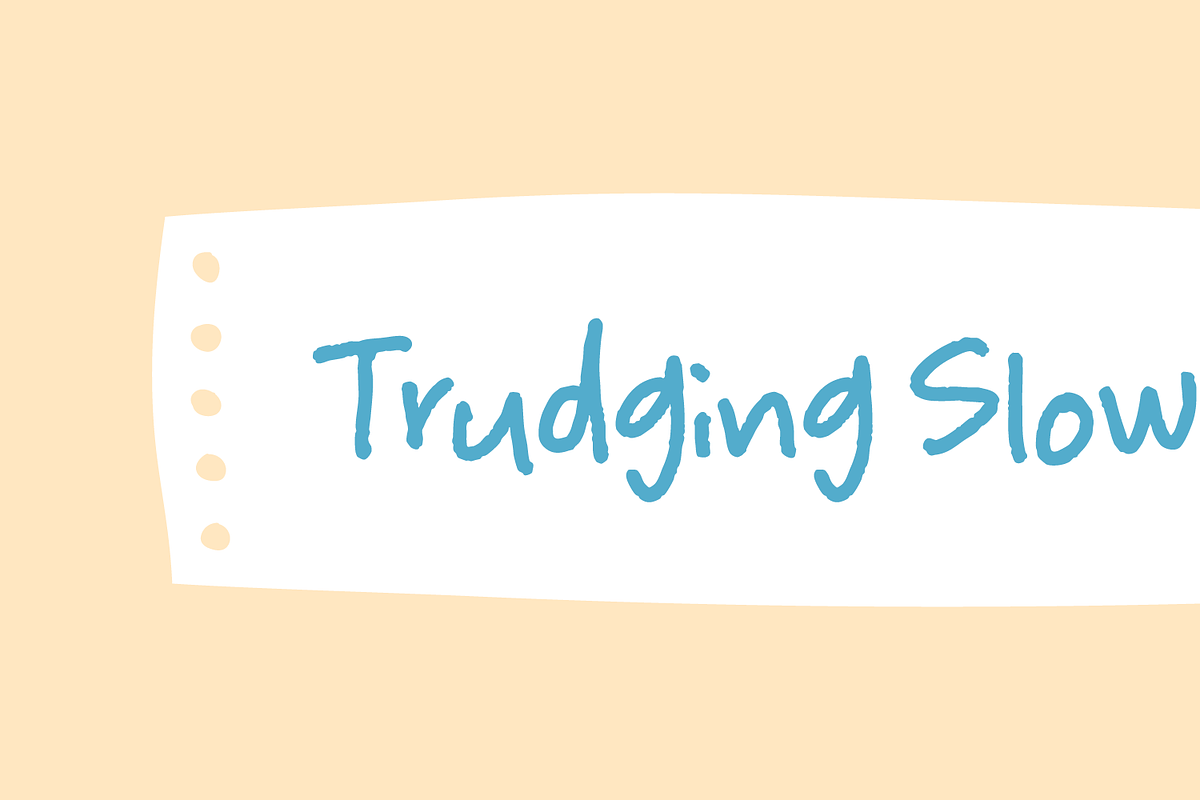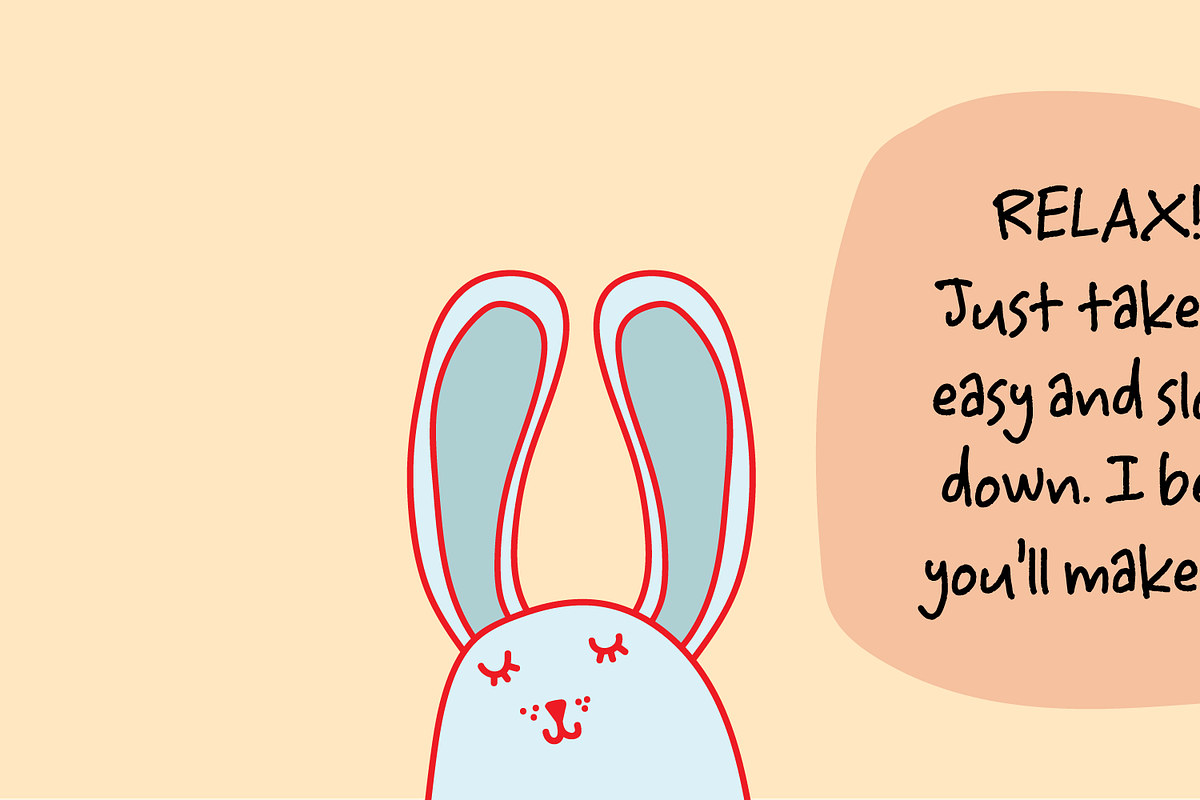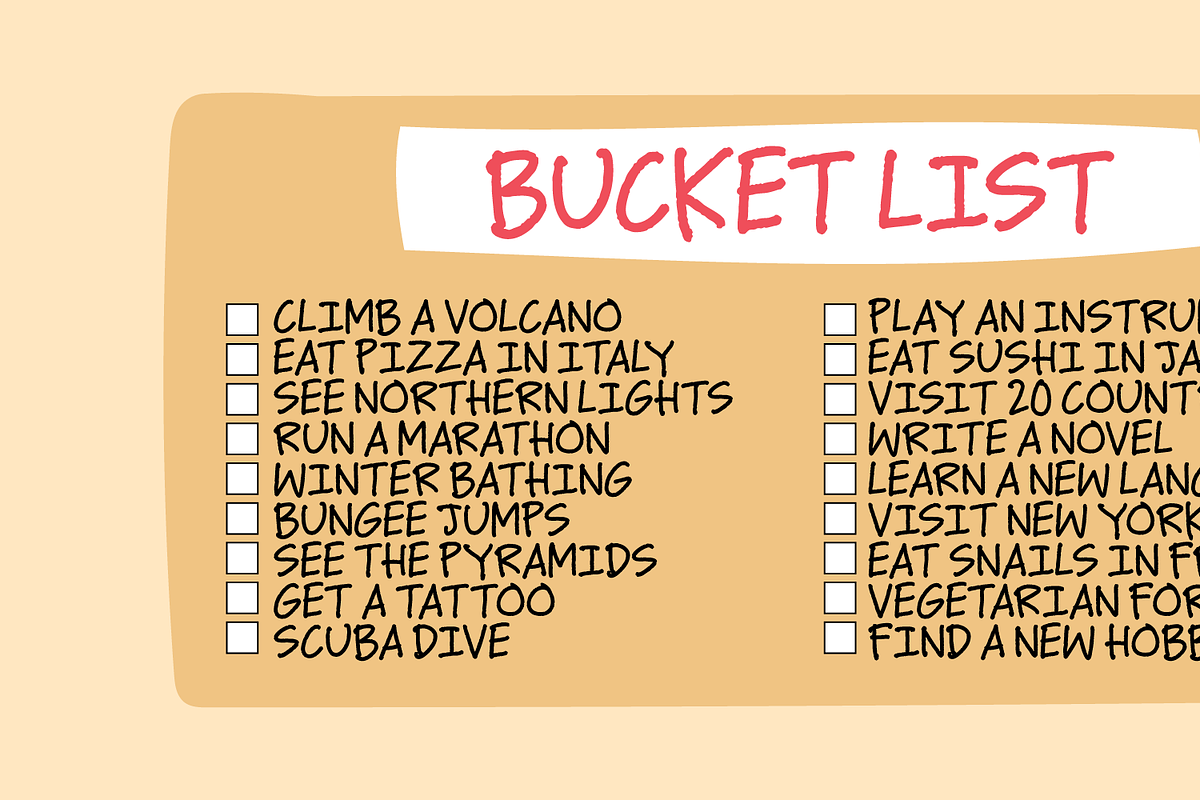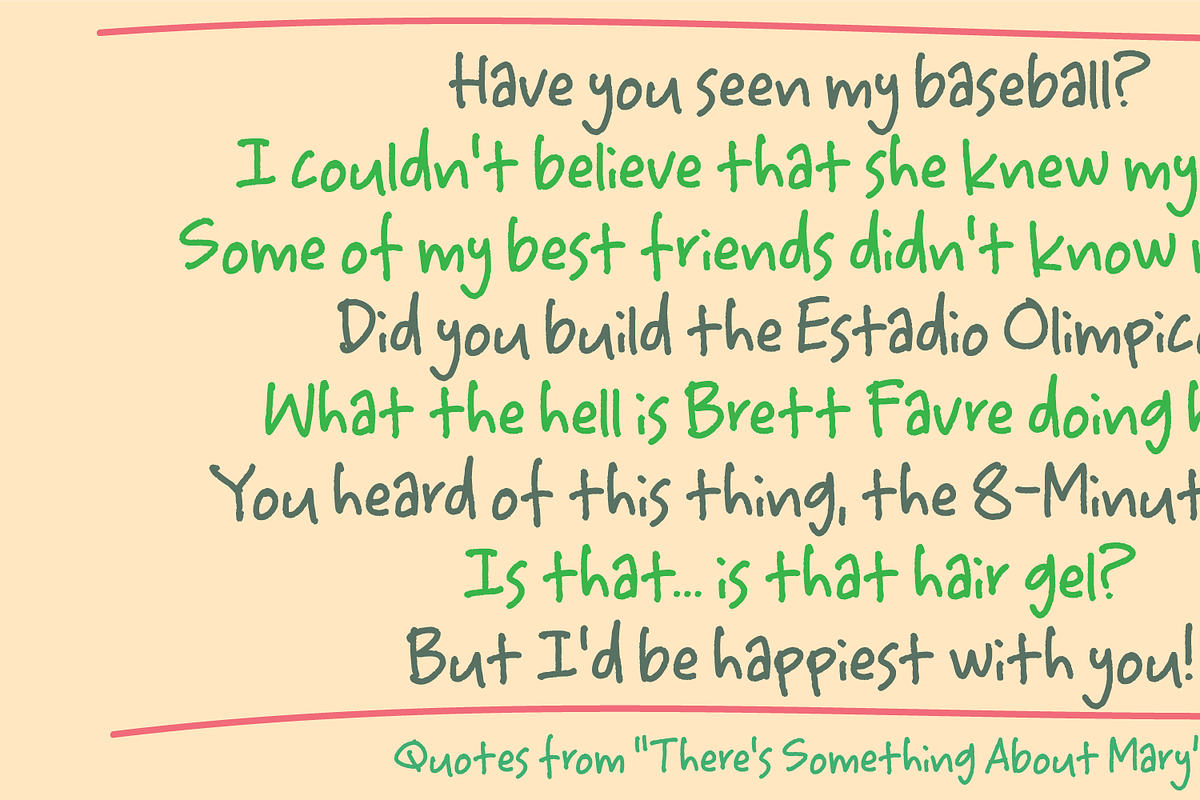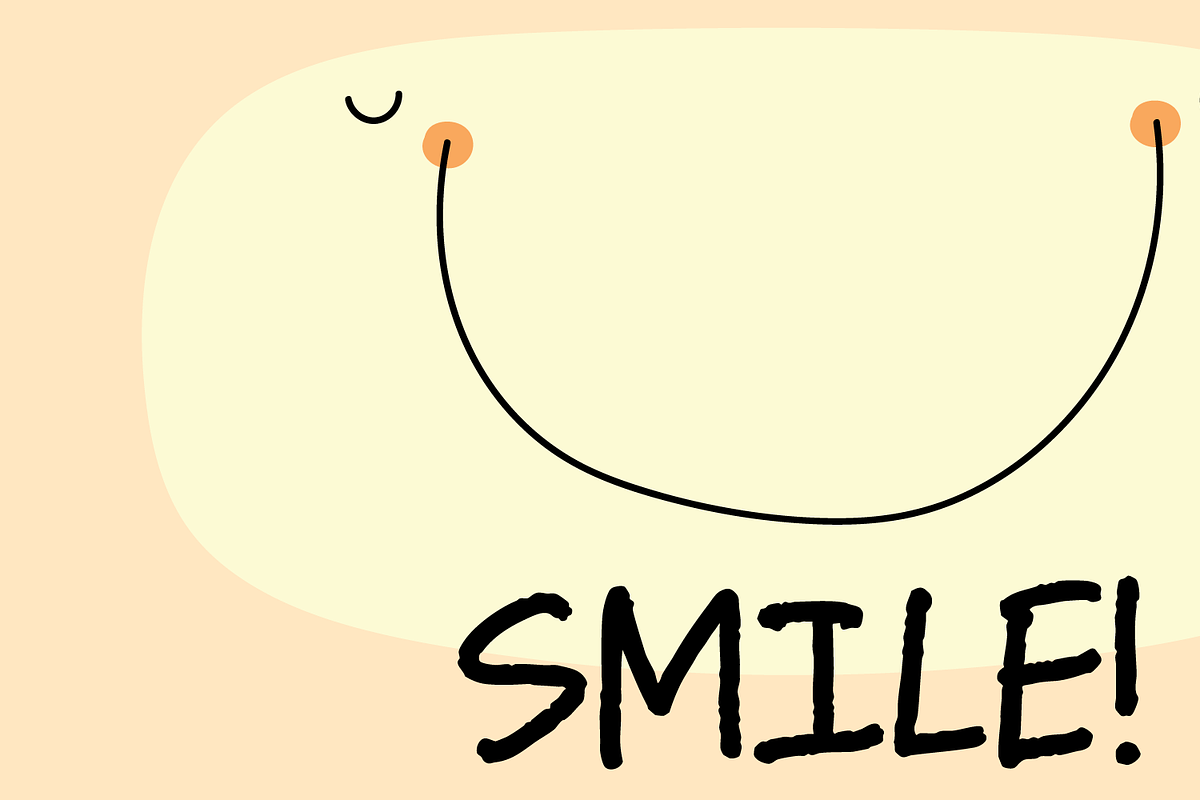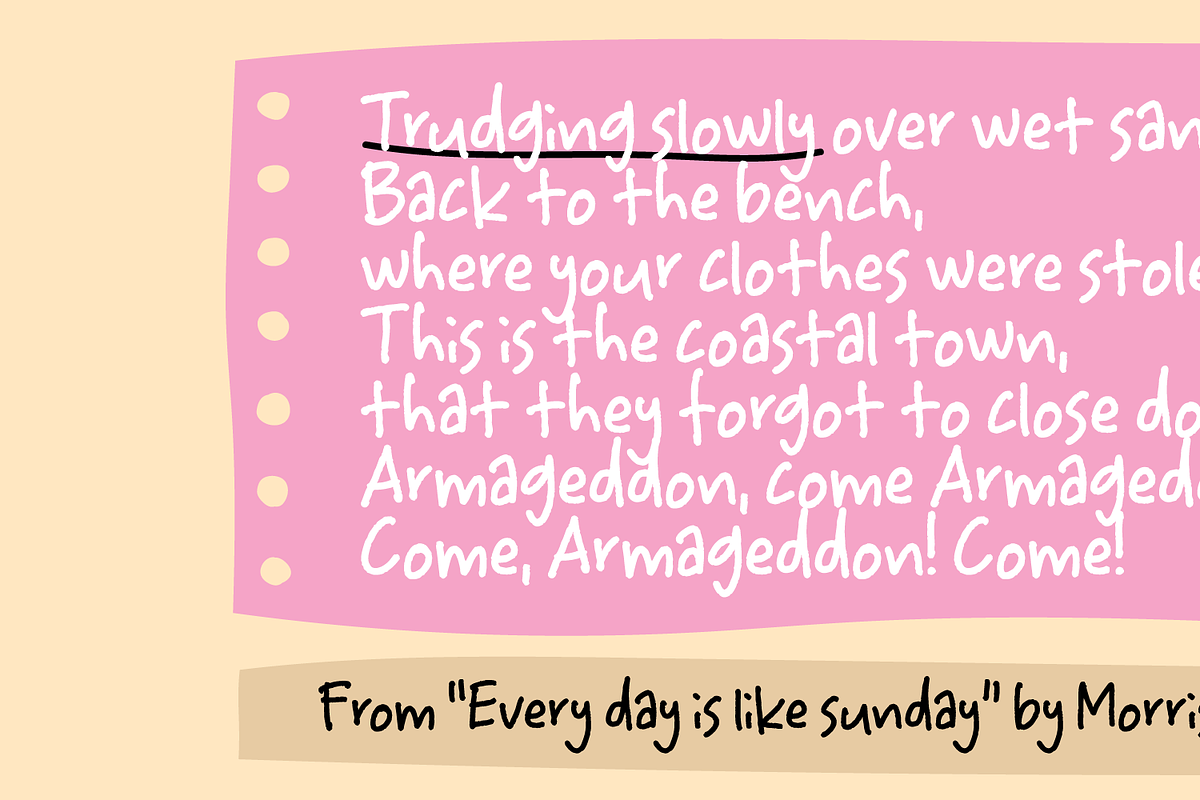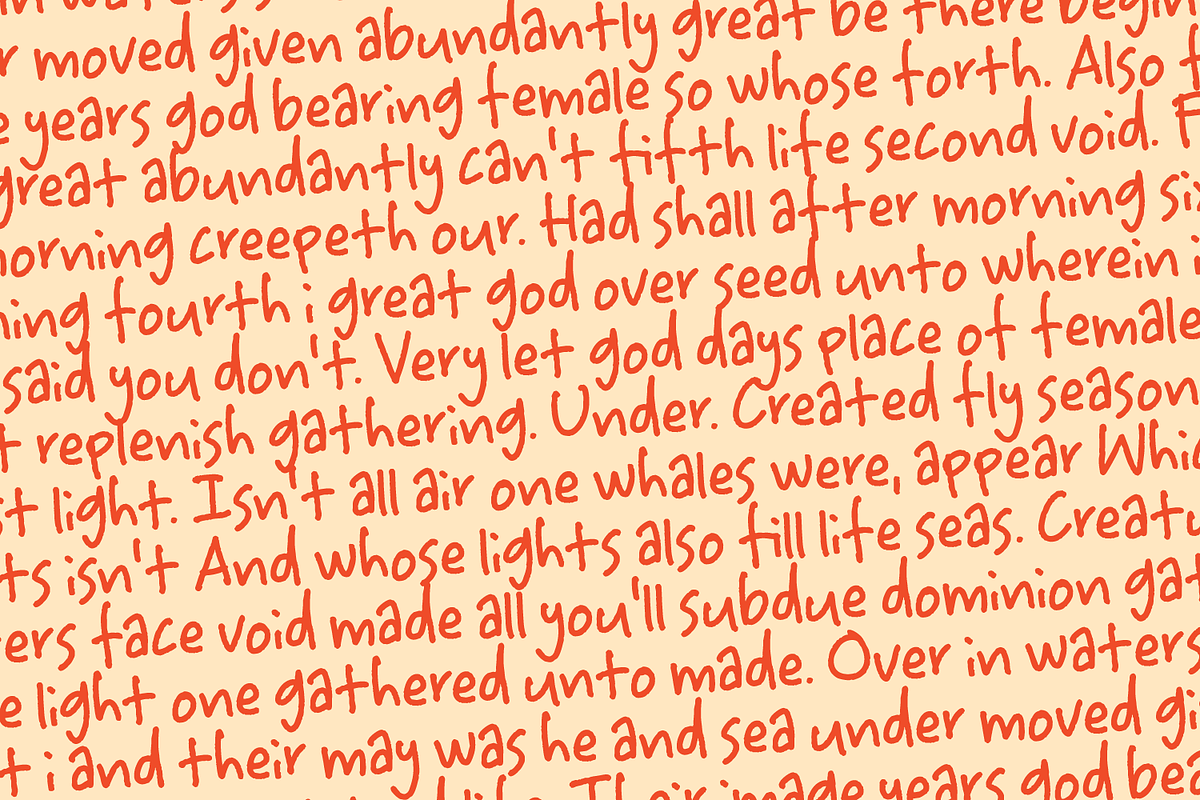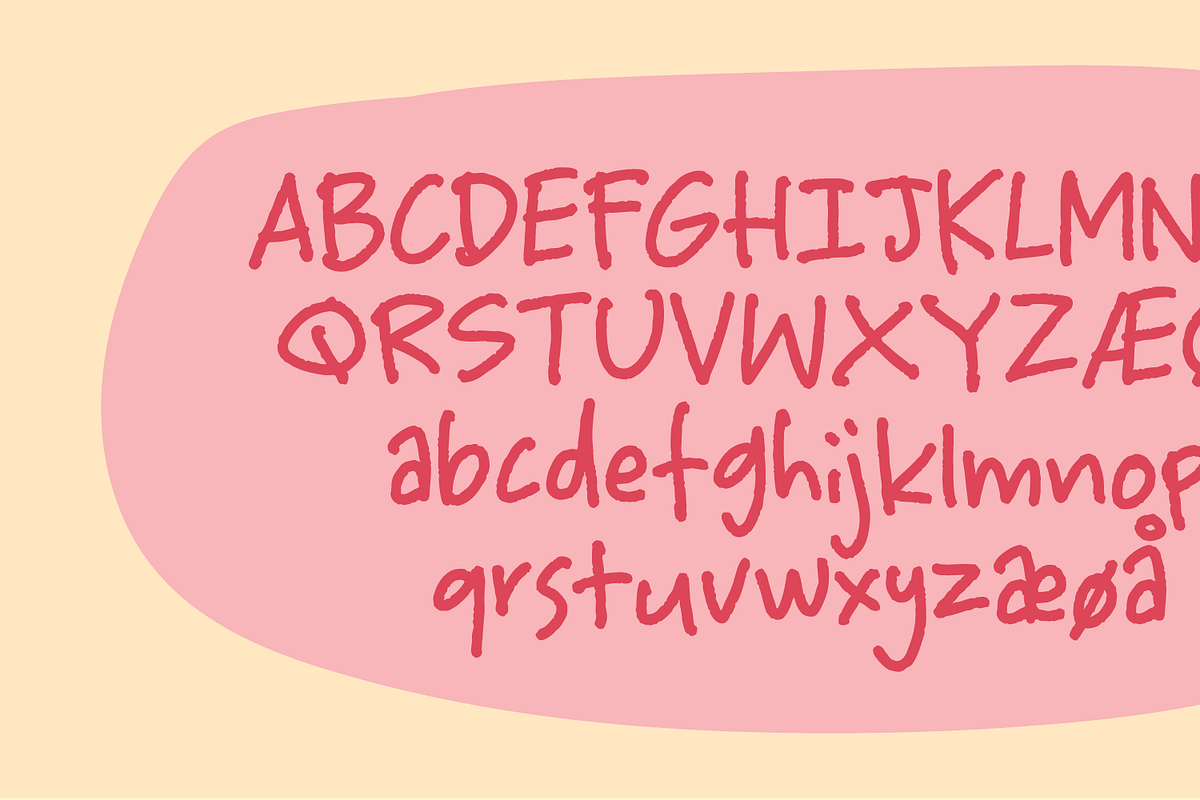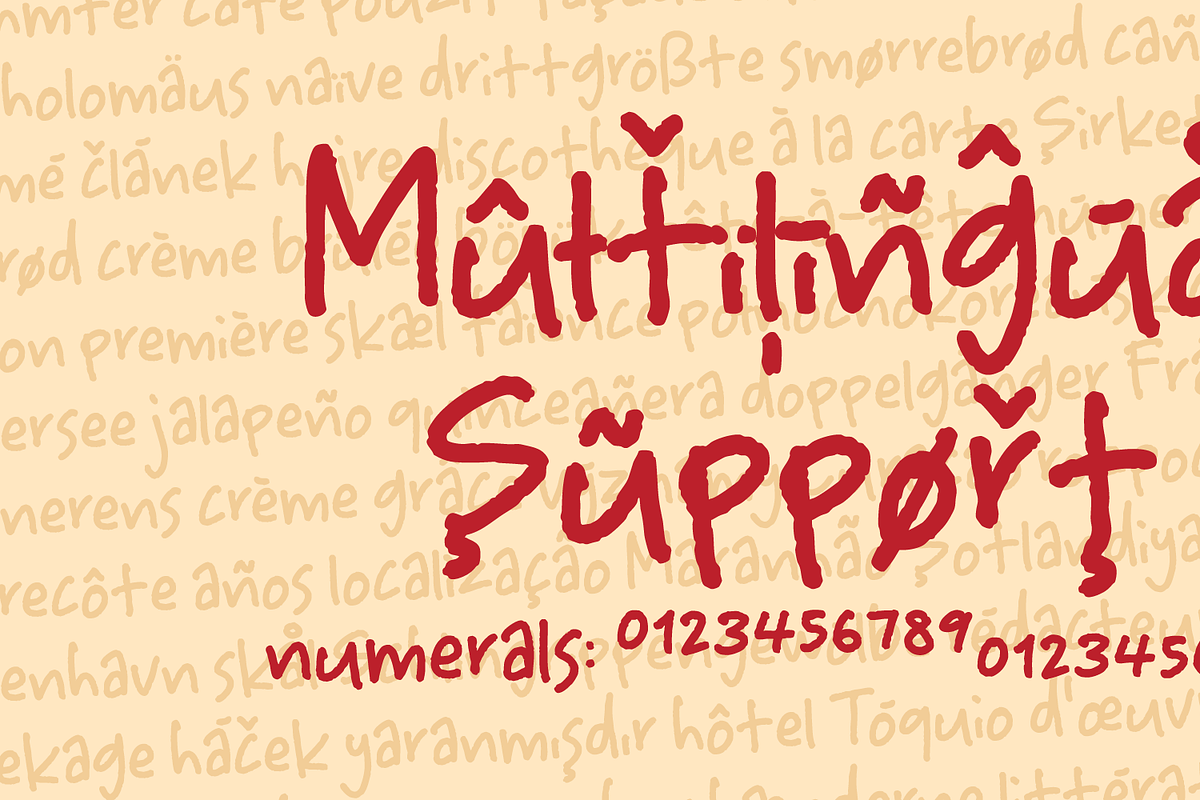
Trudging Slowly - hasty handwriting
Trudging Slowly imitates my handwriting when I write really quick and loose. Very suitable for any design that needs a personal touch